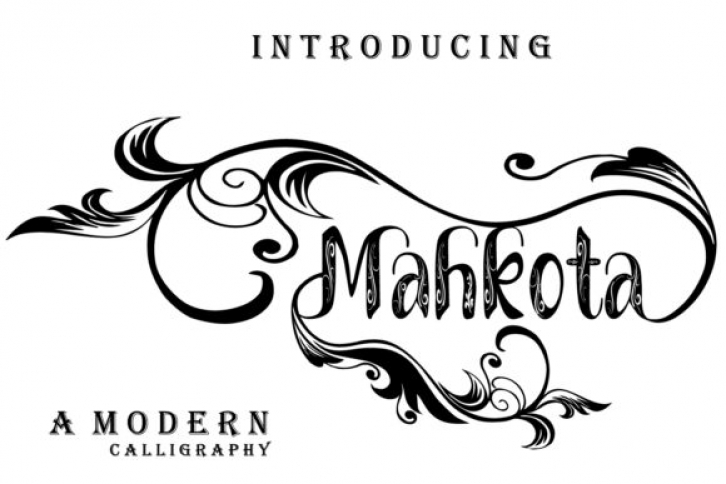
Mahkota is an incredibly distinct and timeless handwritten font. It looks stunning on wedding invitations, thank you cards, quotes, greeting cards, logos, business cards and every other design which needs a handwritten touch.